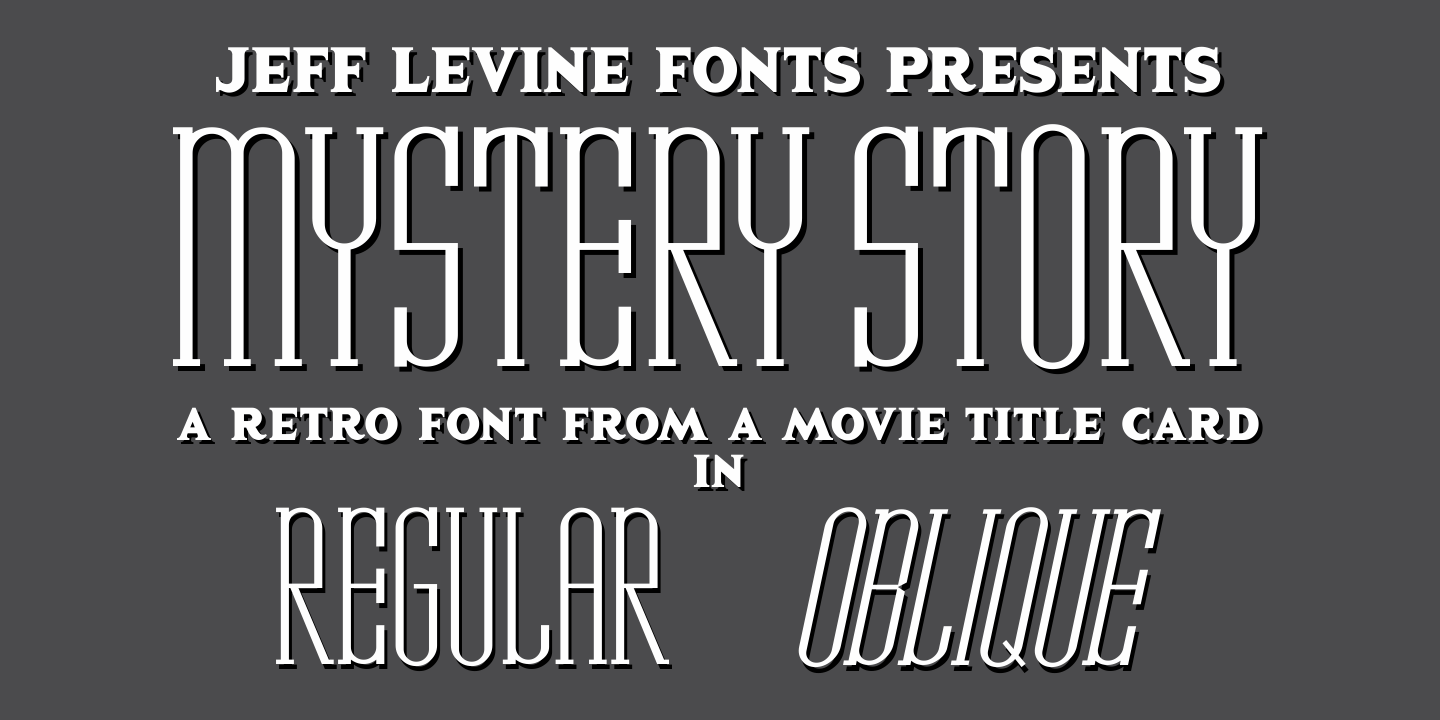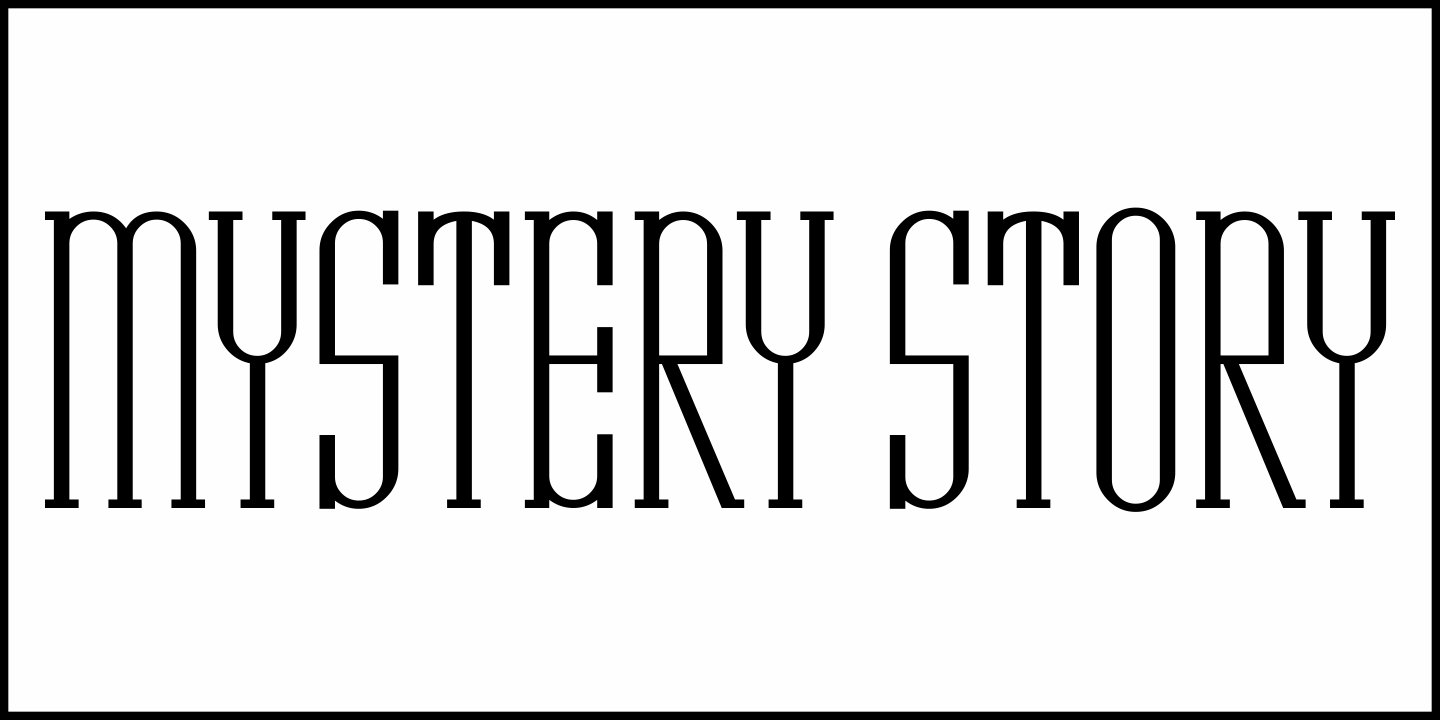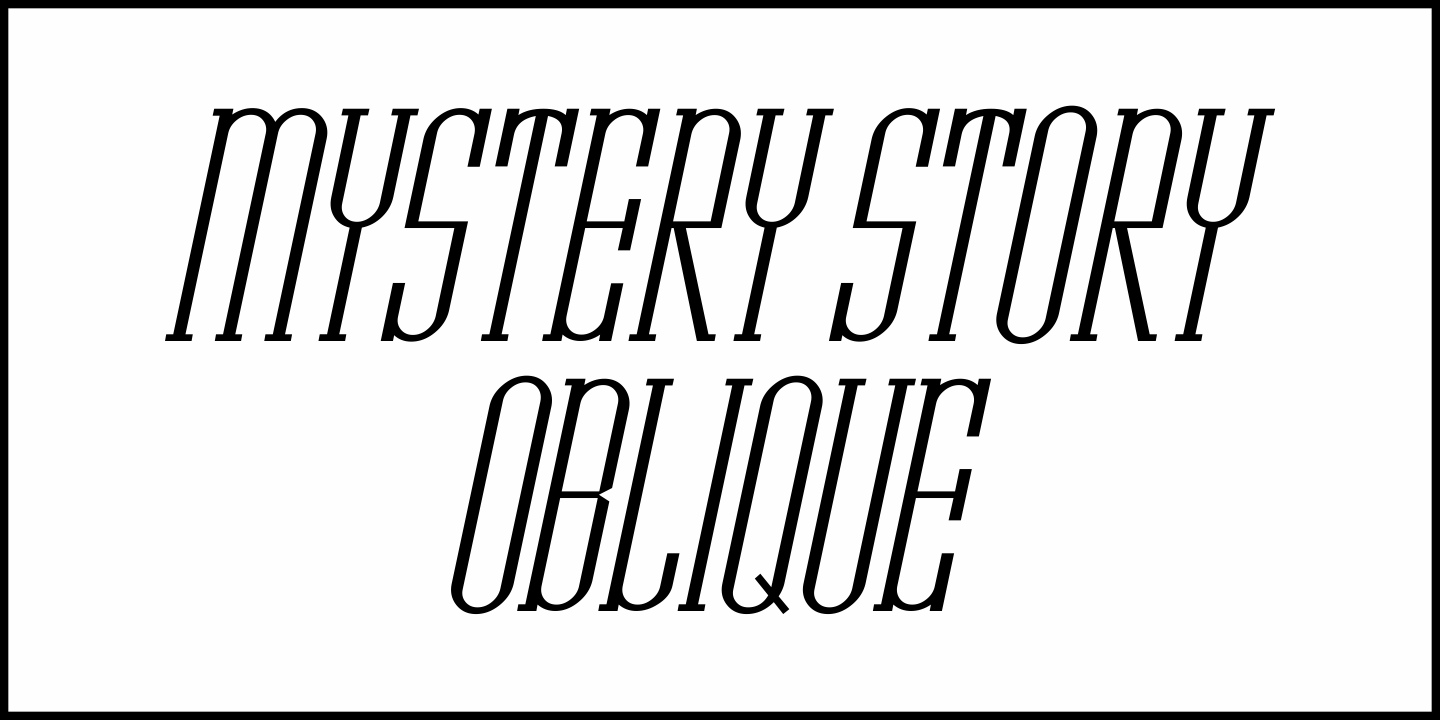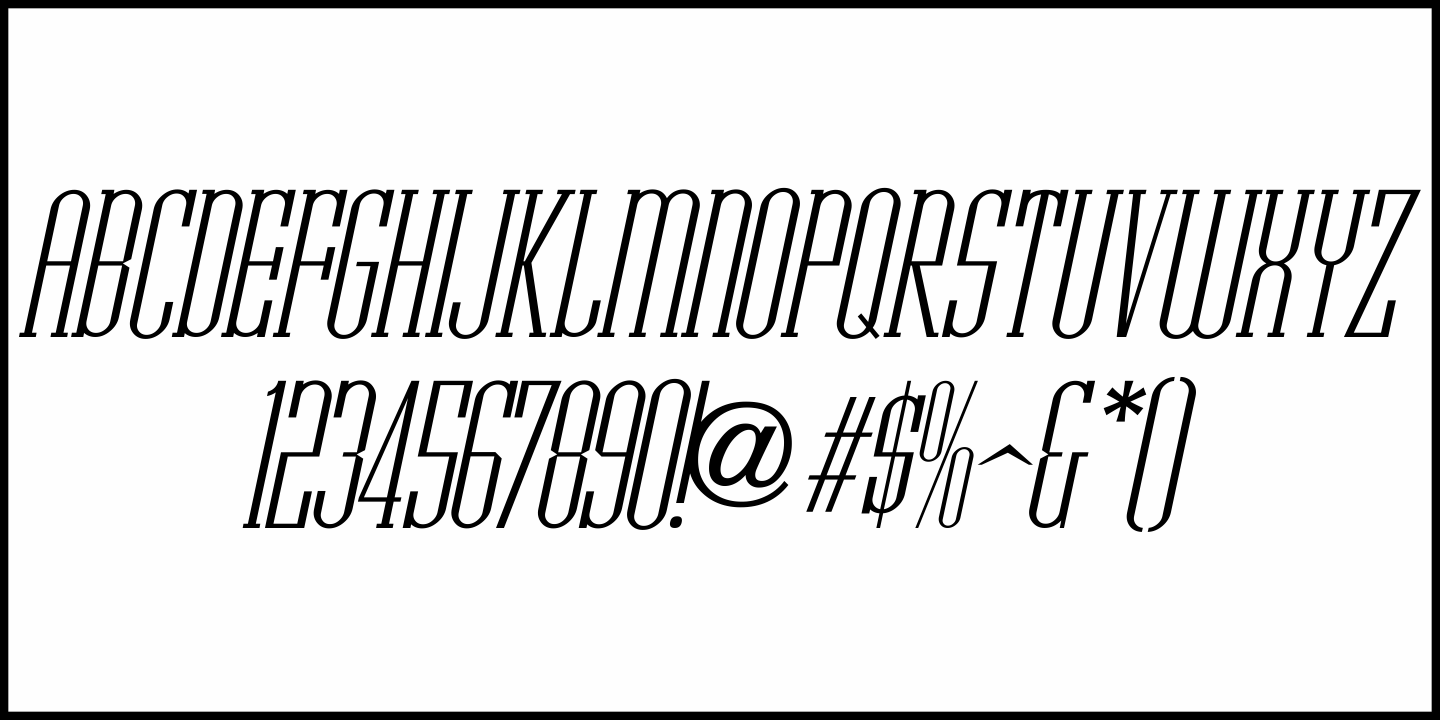
Mystery Story
The opening title card for 'Grand Central Murder” (1942) is hand lettered in a stylized, condensed serif type style with strong but elegant appeal.
This is now available as Mystery Story JNL in both regular and oblique versions.